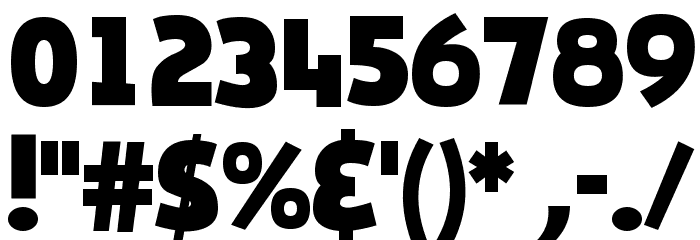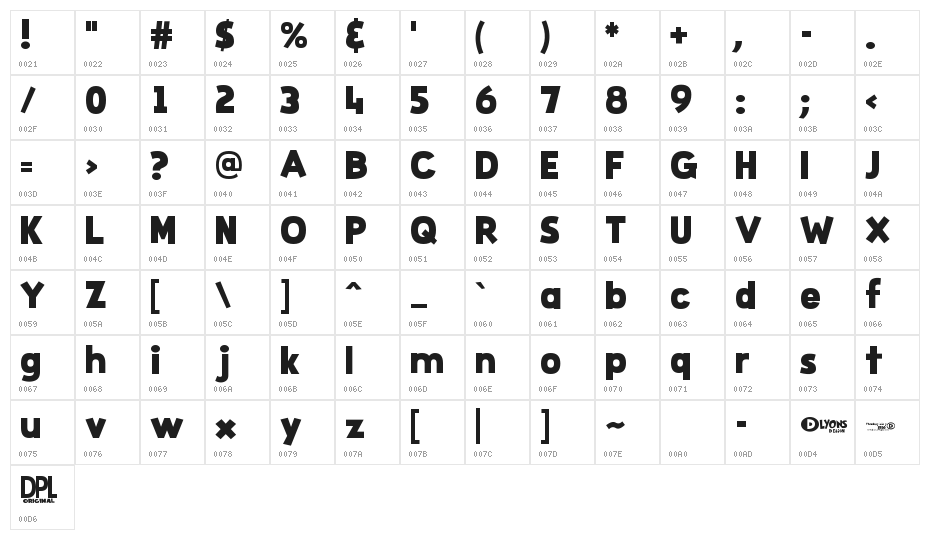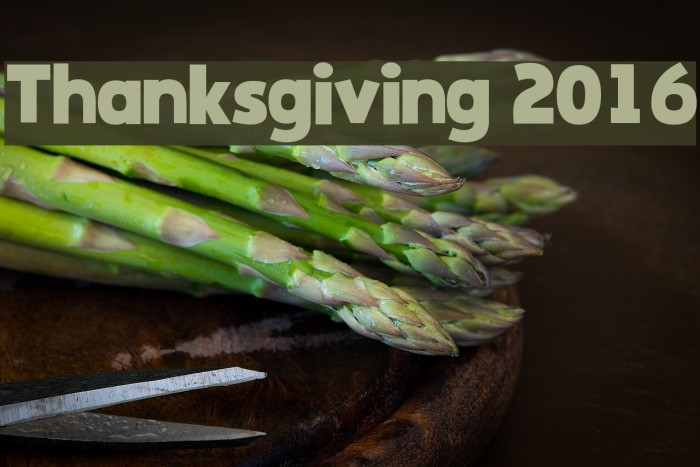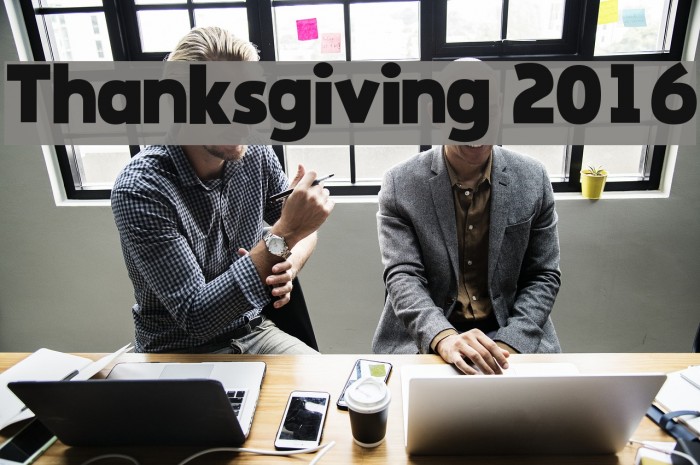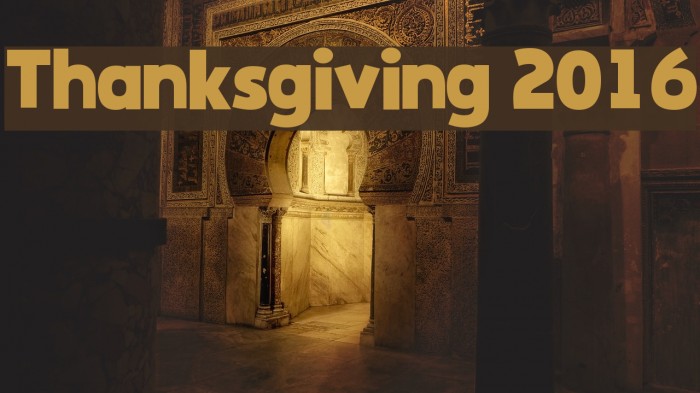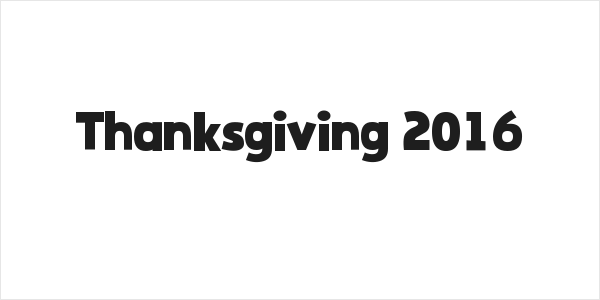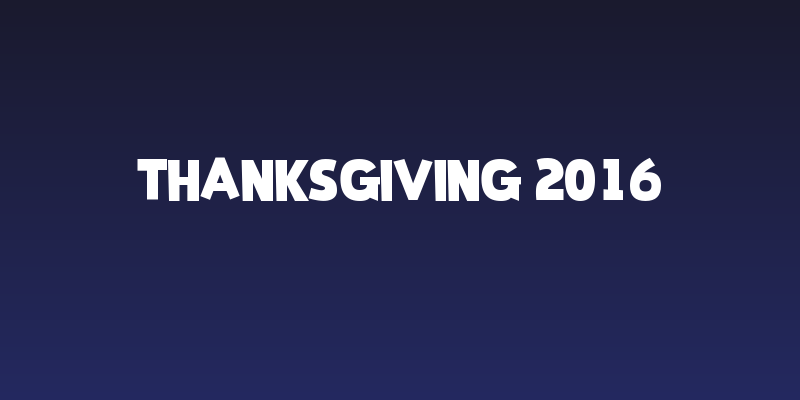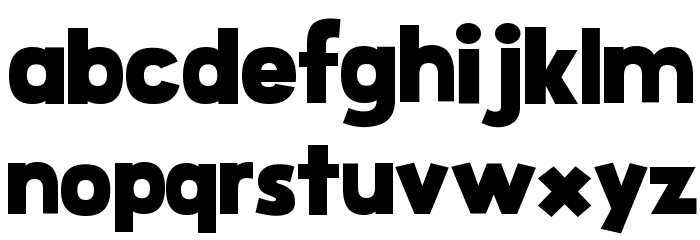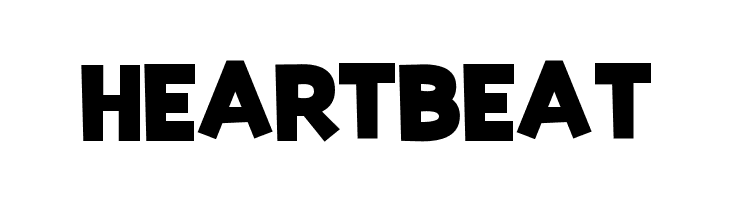
Thanksgiving 2016 Font
Thanksgiving 2016 Description
This font features bold, geometric letterforms with a strong presence. The uppercase and lowercase characters are uniformly thick, creating a sense of stability and confidence. The numerals are equally bold, ensuring readability and impact. Special characters are designed with the same boldness, maintaining consistency across the typeface. The overall design is modern and clean, making it suitable for a variety of applications where a strong visual statement is needed.
THANKSGIVING-2016 UPPERCASE
THANKSGIVING-2016 LOWERCASE
THANKSGIVING-2016 OTHER CHARS
| Proposed Projects | Ideal for branding, headlines, posters, and any design requiring a strong visual impact. |